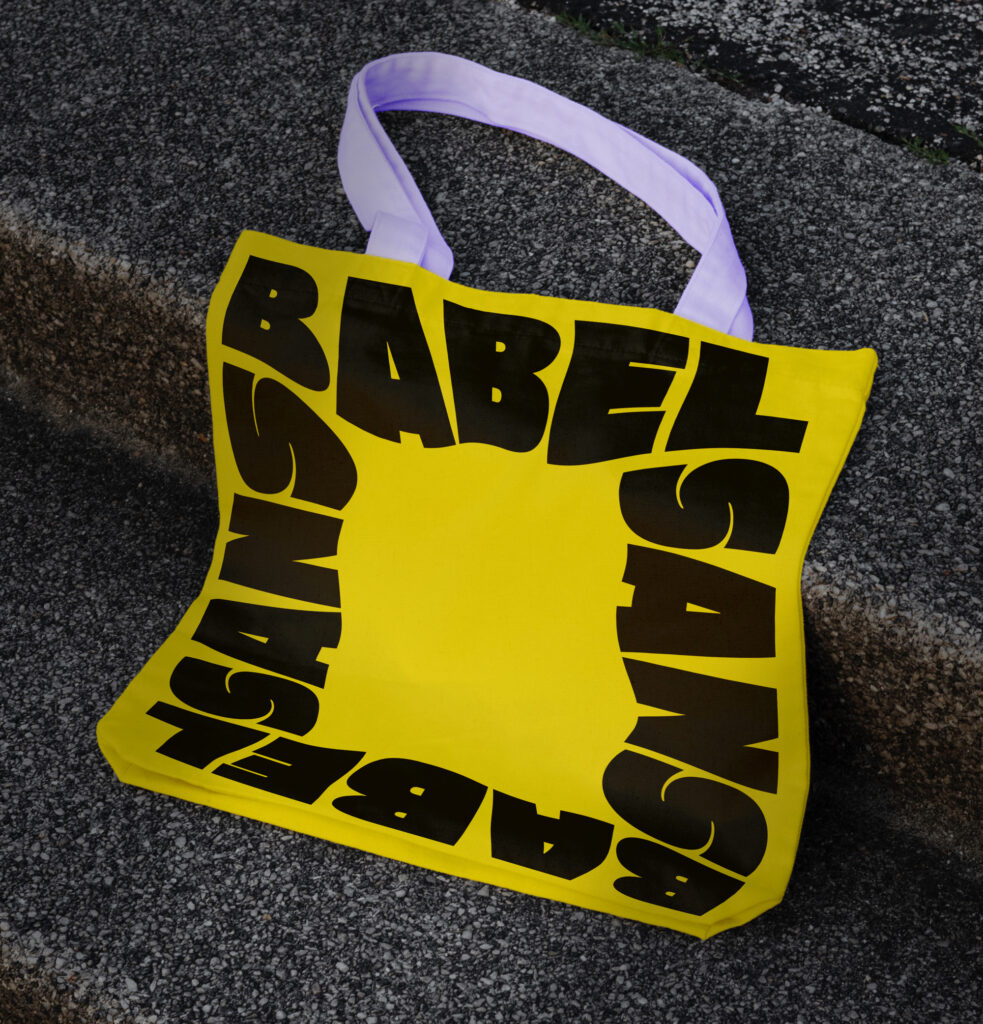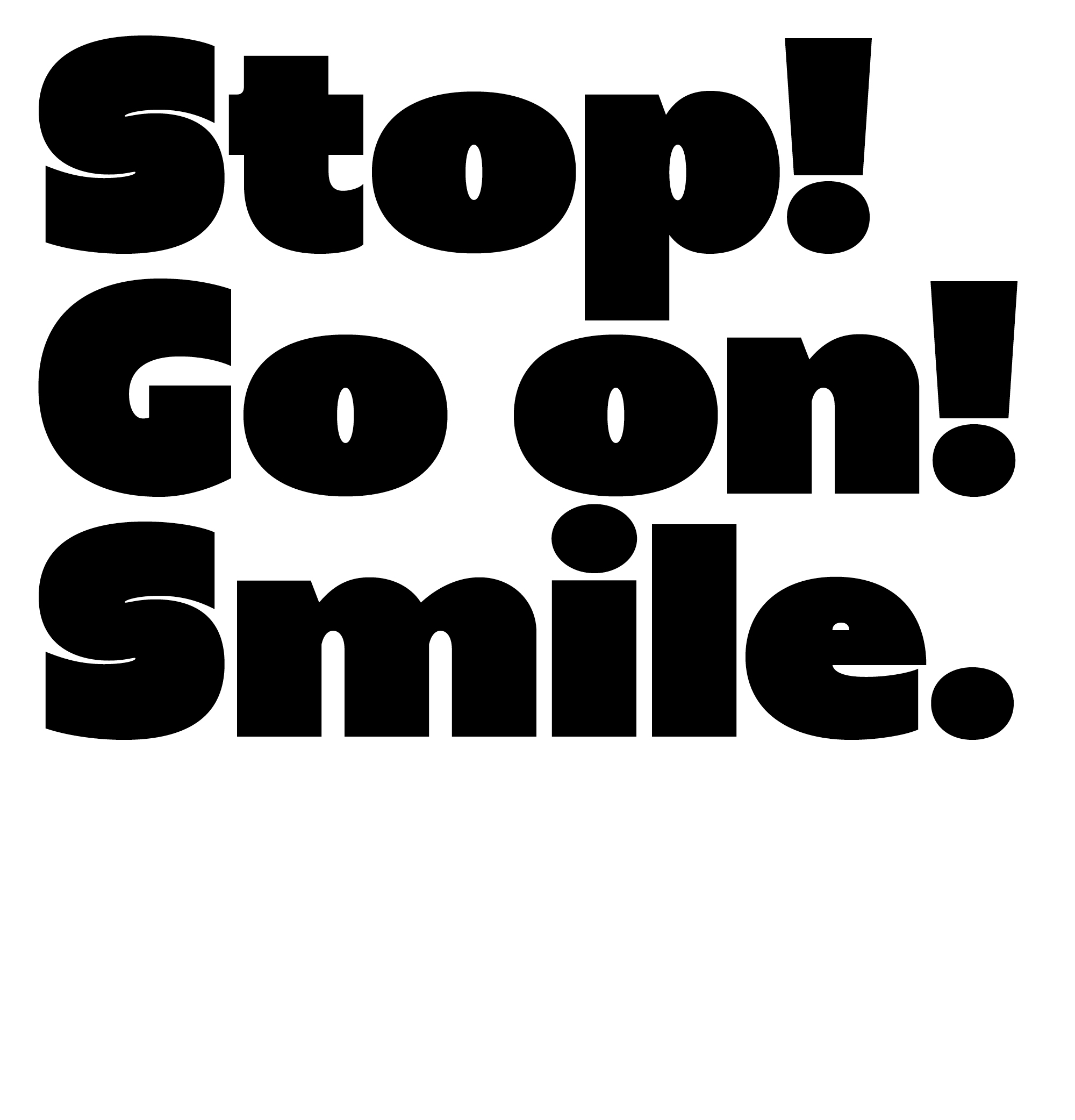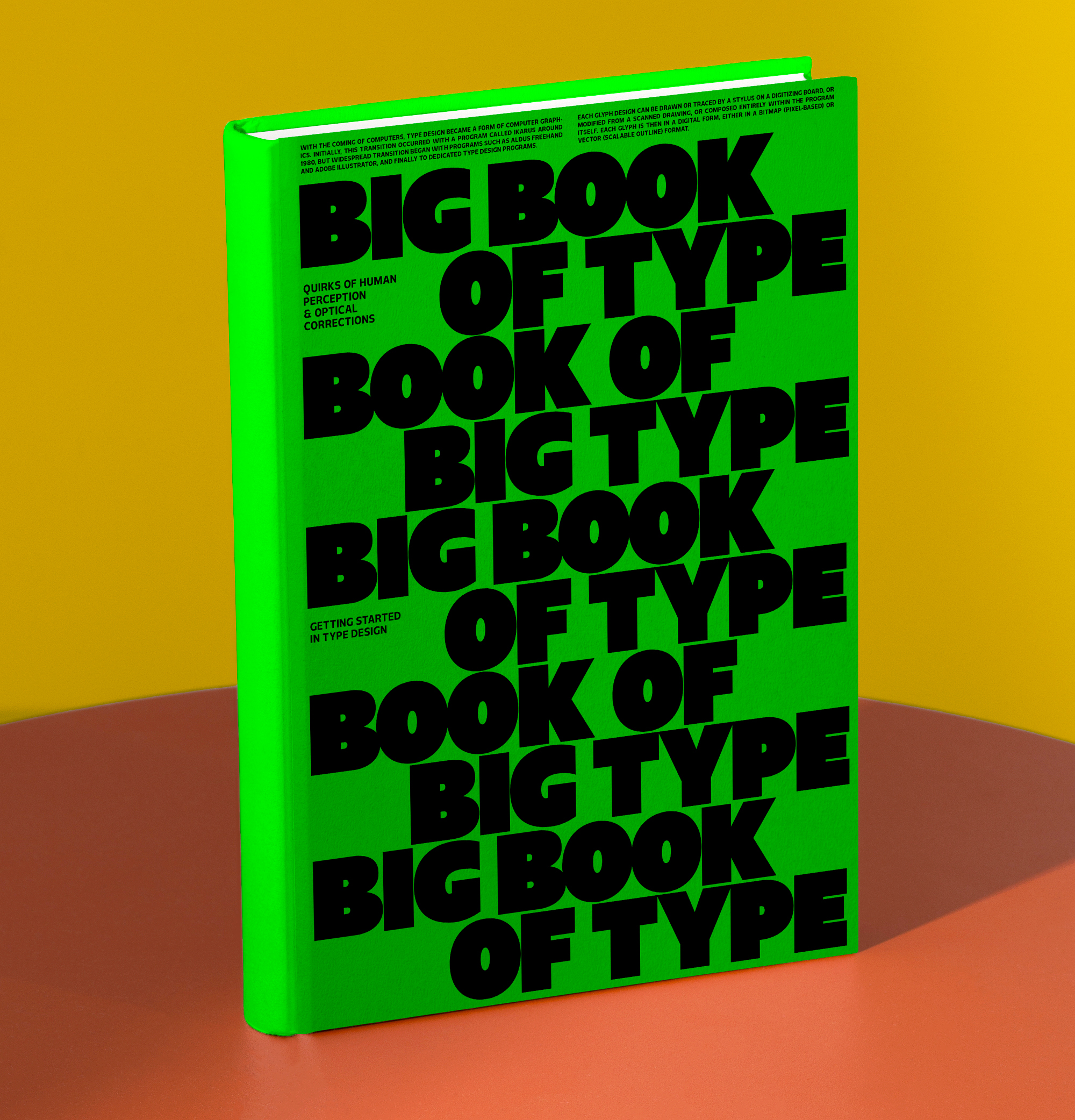
Babel Sans is a contemporary sans-serif typeface engineered with clarity, structure, and a confident visual identity at its core. Designed specifically for branding, it delivers a bold typographic voice with unmistakable character—strong enough to anchor a brand’s visual language, yet refined enough to serve across applications with elegance and control.
Rooted in classical proportions and refined geometry, Babel Sans strikes a careful balance between tradition and modernity. Its letterforms are clean and purposeful, but never sterile. Subtle optical corrections and dynamic forms give it life and rhythm, allowing it to feel both timeless and fresh. The overall tone is assertive without being aggressive—ideal for brands that want to communicate professionalism, strength, and contemporary relevance.
With eight weights from Thin to Black, Babel Sans offers a full range of expressive flexibility. Each weight is crafted with precision, maintaining consistent proportions and spacing, so designers can move fluidly from delicate subheads to bold headlines without losing cohesion. The structure of the typeface ensures legibility across scales, whether you’re working in dense user interfaces, expansive billboard campaigns, or fine-print editorial layouts.
Babel Sans was designed with strong branding applications in mind. Its letterforms feature purposeful idiosyncrasies—subtle flares, sculpted terminals, and dynamic counters—that distinguish it from more neutral grotesques or geometric sans-serifs. These characteristics give brands a unique typographic signature—recognizable, ownable, and built for long-term visual consistency.
Beyond its visual tone, Babel Sans is a robust technical tool. With over 720 characters per style, it supports extended Latin scripts, multiple languages, and OpenType features including stylistic alternates, contextual forms, and a range of symbols and punctuation. This makes it not only a creative asset, but also a globally functional one—ready for the demands of modern branding across platforms and regions.
The typeface integrates smoothly into digital and print environments, with careful attention to screen rendering and print fidelity. Whether used in a high-impact logo, a mobile app interface, or an immersive editorial spread, Babel Sans adapts with ease, always preserving its clear sense of form and identity.
In a world where branding demands both distinctiveness and versatility, Babel Sans delivers. It’s a typeface built not just to support design—but to shape and elevate it.